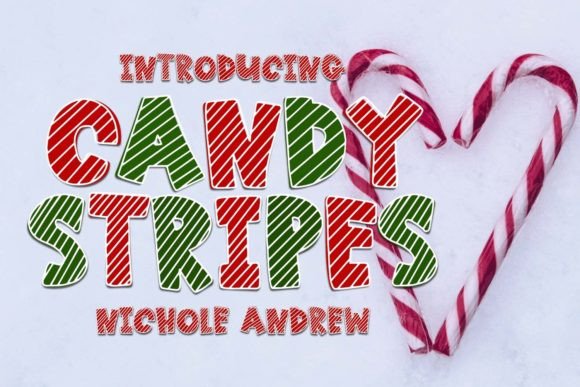
Introducing Candy Stripes, a cute and fun display font. This font is great for Christmas or any time of year! Use Candy Stripes on t-shirts, gift tags, pillowcases, decor and so much more!